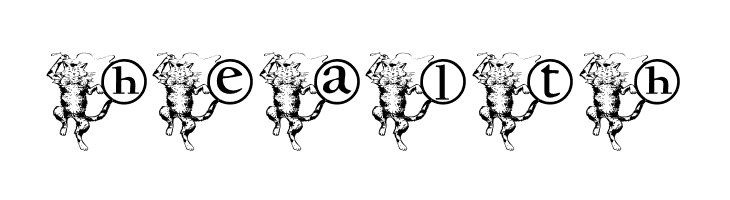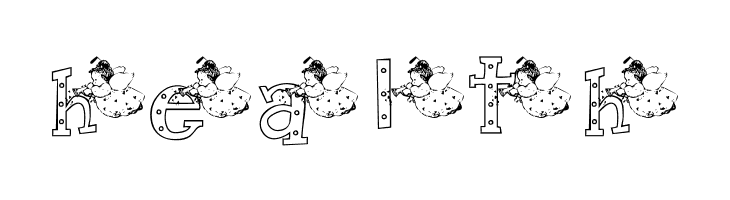
A bold, tech-inspired font with geometric, blocky characters and cut-out sections.
( Barb Johnson )
A sports-themed font with letters in helmets and numbers on jerseys.
( Casa Phunk Phonts - www.muraldivision.co.uk/ )
A decorative, Mayan glyph-inspired pictorial font.
( Charles Minow - www.henge.com/~minow/fonts.html )
A decorative geometric pattern font with Southwestern influences.
( DaShiz )
A dotted educational font for teaching handwriting.
( Dry Heaves - www.drybohnz.com/ )
A bold, decorative font with stars and stripes pattern, ideal for patriotic themes.
( Etherbrian - www.etherbrian.com/ )
A geometric, framed font with bold strokes and a modern, structured design.
( Katz Fontz - katzfonts.50megs.com/kg.html )
A decorative font with intricate fairy-themed embellishments on each letter.
( Katz Fontz - katzfonts.50megs.com/kg.html )
An ornate, decorative font with floral embellishments on each character.
( Katz Fontz - katzfonts.50megs.com/kg.html )
A whimsical, decorative font with cartoon-like characters integrated into each letter.